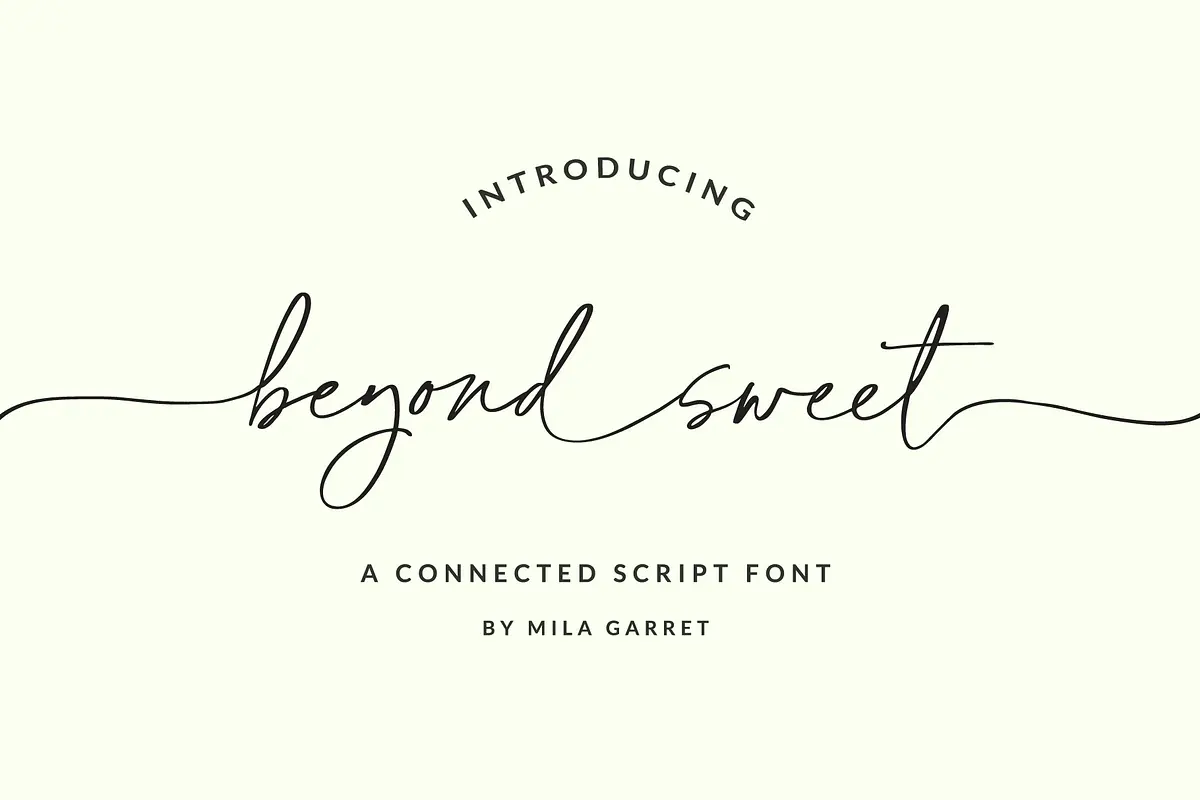
BeyondSweet Handwritten Wedding Font Free Download is a romantic and elegant script typeface designed specifically for weddings, events, and heartfelt designs. With its flowing curves, delicate strokes, and natural handwritten feel, this font is perfect for invitations, save-the-dates, thank-you cards, branding for wedding vendors, and elegant stationery.
BeyondSweet adds a soft, personal touch that feels both genuine and graceful. Its smooth, modern calligraphy style enhances visual appeal while remaining legible and versatile across various design formats.